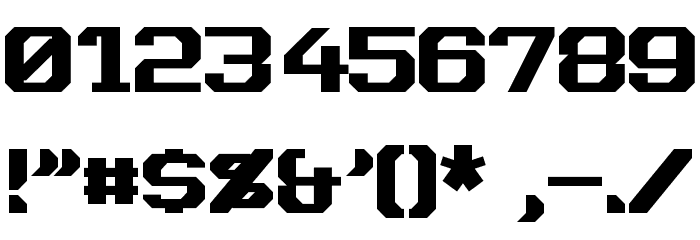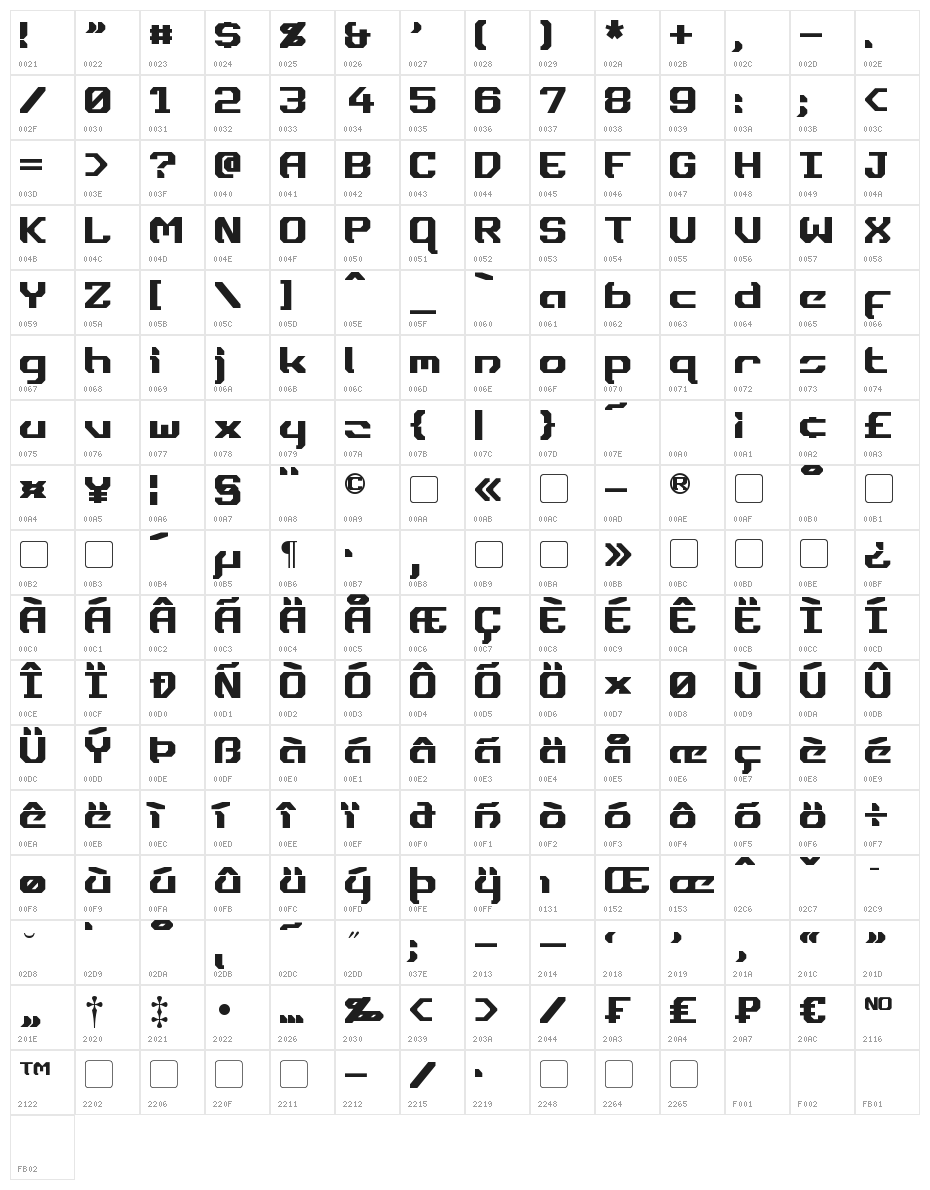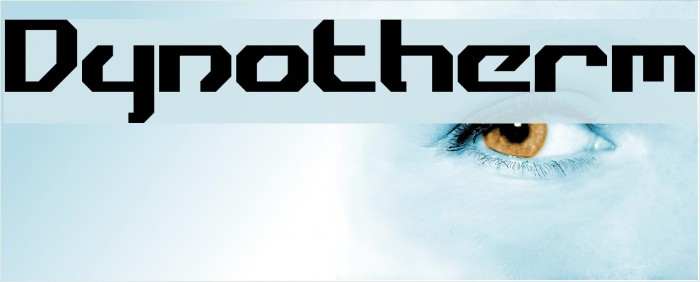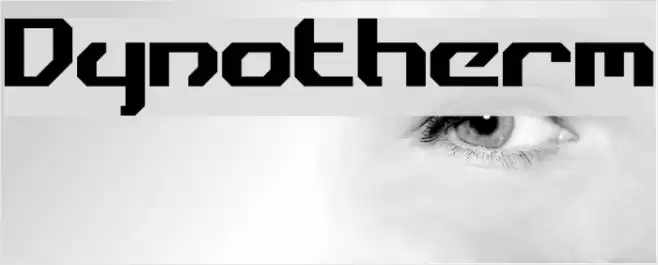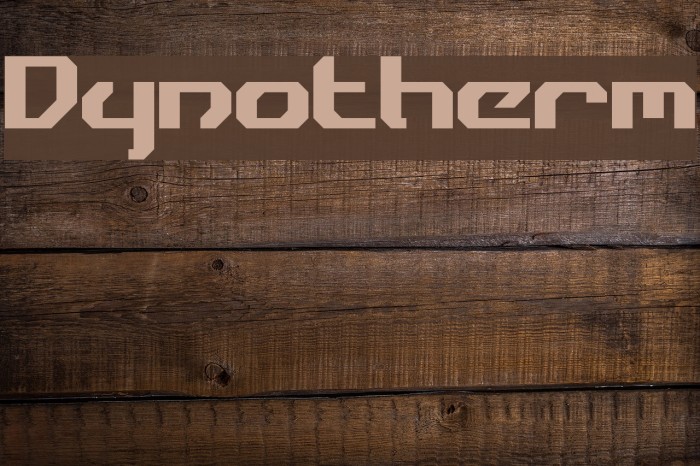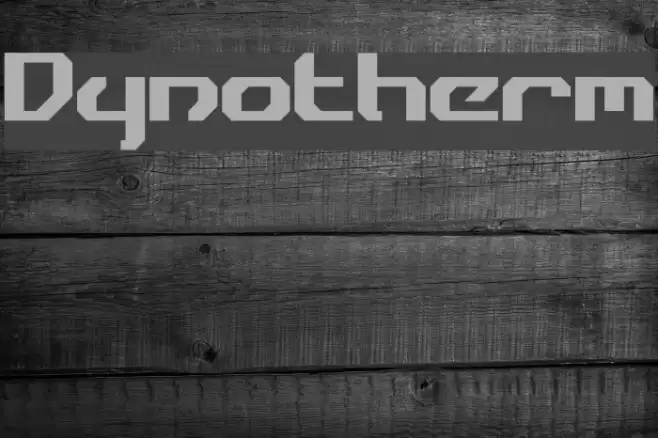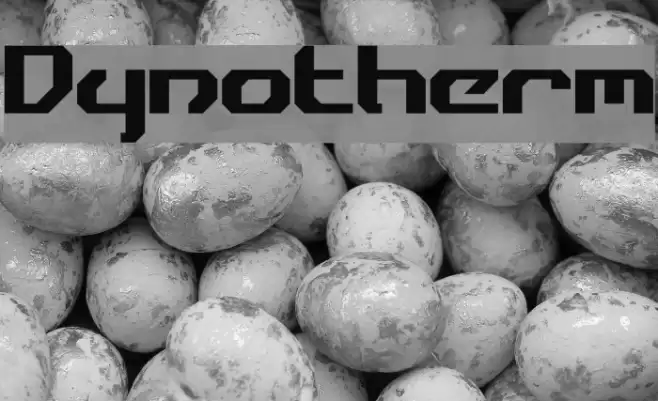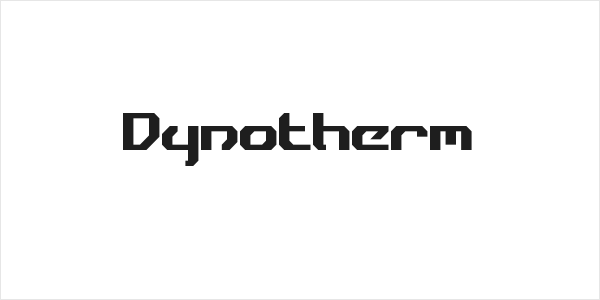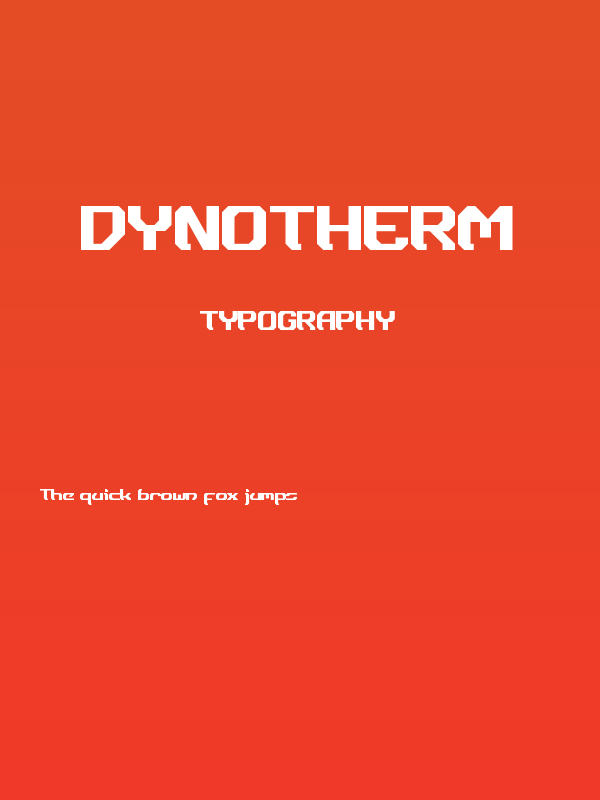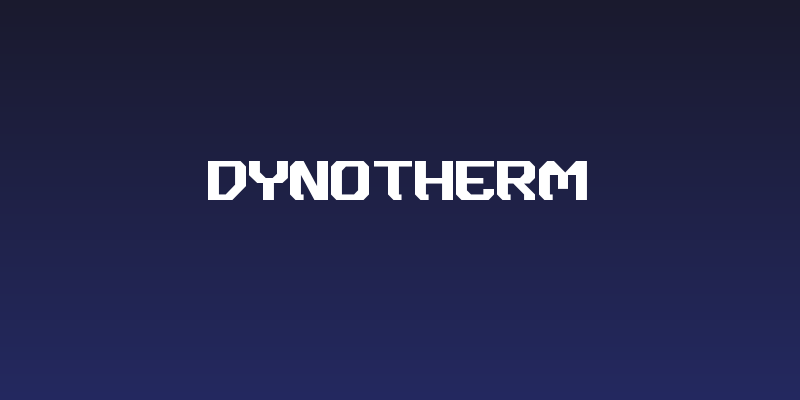
Dynotherm Font
Dynotherm Description
This font features a bold, geometric design with a futuristic and industrial feel. The characters are constructed with sharp angles and straight lines, giving them a mechanical and robust appearance. The uppercase letters are particularly striking, with a blocky and solid structure that commands attention. The lowercase letters maintain the same angular style, ensuring consistency throughout the typeface. Numbers and special characters are equally bold and distinctive, making them stand out in any design. The overall style is modern and edgy, suitable for projects that require a strong visual impact.
| Proposed Projects | Ideal for technology branding, video game titles, sci-fi posters, and industrial-themed designs. |